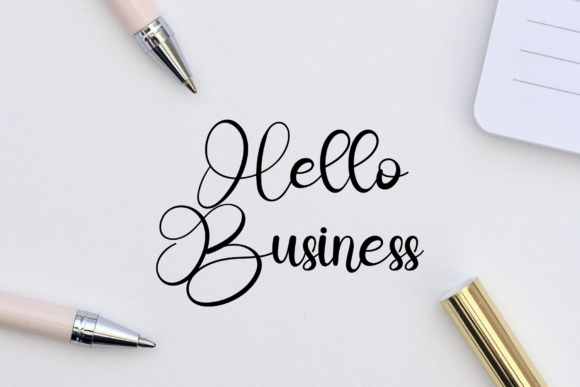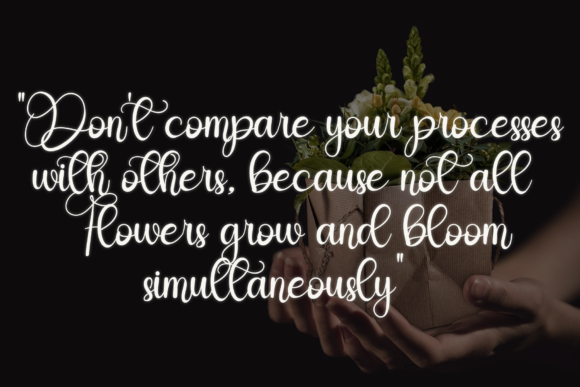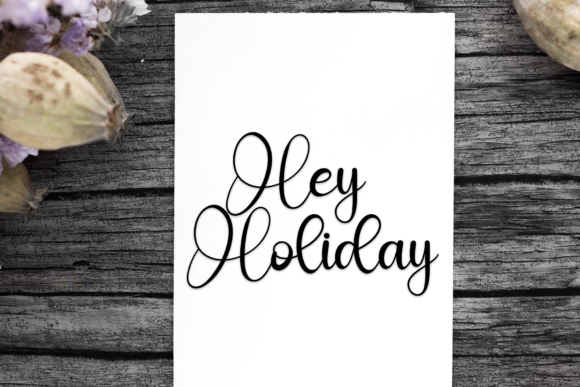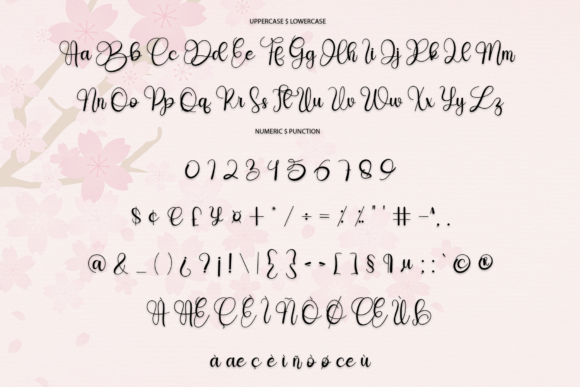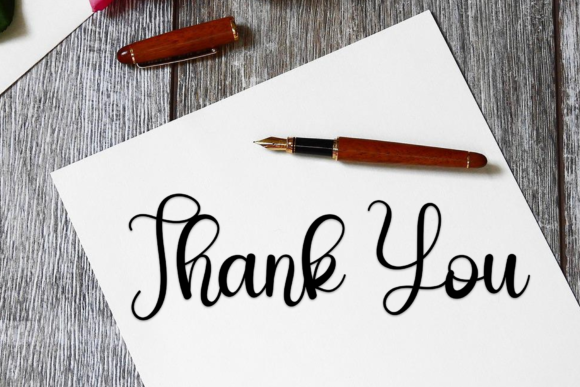
Coffee Font: The Perfect Choice for Unique Designs
Are you a designer or crafter looking for a font that can add a touch of elegance and whimsy to your projects? Look no further than the Coffee Font, a delicate handwritten font carefully crafted for a cool and unique design. In this article, we’ll explore the features and benefits of the Coffee Font, and how it can be used to elevate your designs.
What is Coffee Font?
Coffee Font is a beautiful handwritten font that is perfect for creating unique and eye-catching designs. With its delicate lines and elegant curves, this font is sure to add a touch of sophistication to any project. Whether you’re designing a logo, creating a social media graphic, or crafting a handmade card, the Coffee Font is a versatile choice that can be used in a variety of applications.
Features of Coffee Font
The Coffee Font has several features that make it a standout choice for designers and crafters. Some of its key features include:
- Handwritten style: The Coffee Font has a beautiful handwritten style that gives it a personal and unique touch.
- Delicate lines: The font’s delicate lines and elegant curves make it perfect for creating sophisticated designs.
- Versatile: The Coffee Font can be used in a variety of applications, from logos and social media graphics to handmade cards and invitations.
- Easy to read: Despite its delicate lines, the Coffee Font is easy to read, making it perfect for body text as well as headings.
Uses for Coffee Font
The Coffee Font is a versatile font that can be used in a variety of applications. Here are some ideas for using the Coffee Font:
- Invitations: The Coffee Font is perfect for creating beautiful and elegant invitations for weddings, parties, and other special events.
- Food products: If you’re designing labels or packaging for food products, the Coffee Font is a great choice. Its elegant style is perfect for showcasing the quality and sophistication of your products.
- Logos: The Coffee Font can be used to create unique and eye-catching logos for businesses and brands.
- Social media graphics: The Coffee Font is a great choice for creating social media graphics, such as Facebook posts and Instagram stories.
- Handmade cards: If you’re a crafter who loves making handmade cards, the Coffee Font is a great choice. Its delicate lines and elegant curves make it perfect for creating beautiful and personalized cards.
Tips for Using Coffee Font
Here are some tips for using the Coffee Font in your designs:
- Use it sparingly: While the Coffee Font is beautiful, it can be overwhelming if used too much. Use it sparingly to add a touch of elegance to your designs.
- Pair it with other fonts: The Coffee Font pairs well with other fonts, such as sans-serif fonts and script fonts. Experiment with different pairings to find the one that works best for your design.
- Adjust the size: The Coffee Font can be used at a variety of sizes, from large headings to small body text. Experiment with different sizes to find the one that works best for your design.
The Coffee Font is a beautiful and versatile font that is perfect for designers and crafters who want to add a touch of elegance and whimsy to their projects. With its delicate lines and elegant curves, this font is sure to make your designs stand out. Whether you’re creating invitations, food labels, logos, or handmade cards, the Coffee Font is a great choice. So why not give it a try and see how it can elevate your designs?